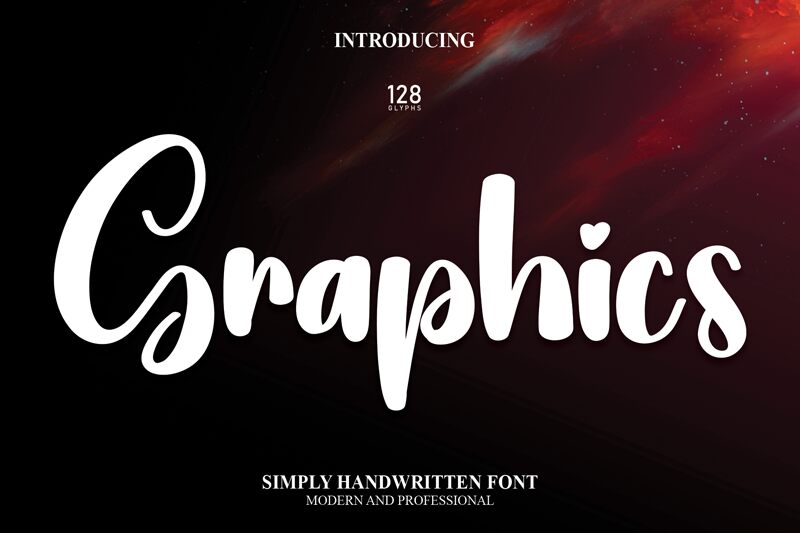
Graphics
Graphics, designed by Scratchones, is a captivating semi-bold font that brings a touch of elegance to any project. With its smooth brush style, this font is perfect for adding a creative and artistic flair to various designs.
Its versatility makes it suitable for a wide range of projects such as logo designs, branding materials, packaging, invitations, and social media graphics. Whether you're aiming for a modern or vintage look, Graphics will effortlessly elevate your designs with its unique charm and legibility.
Let your creativity flow with this captivating brush font!